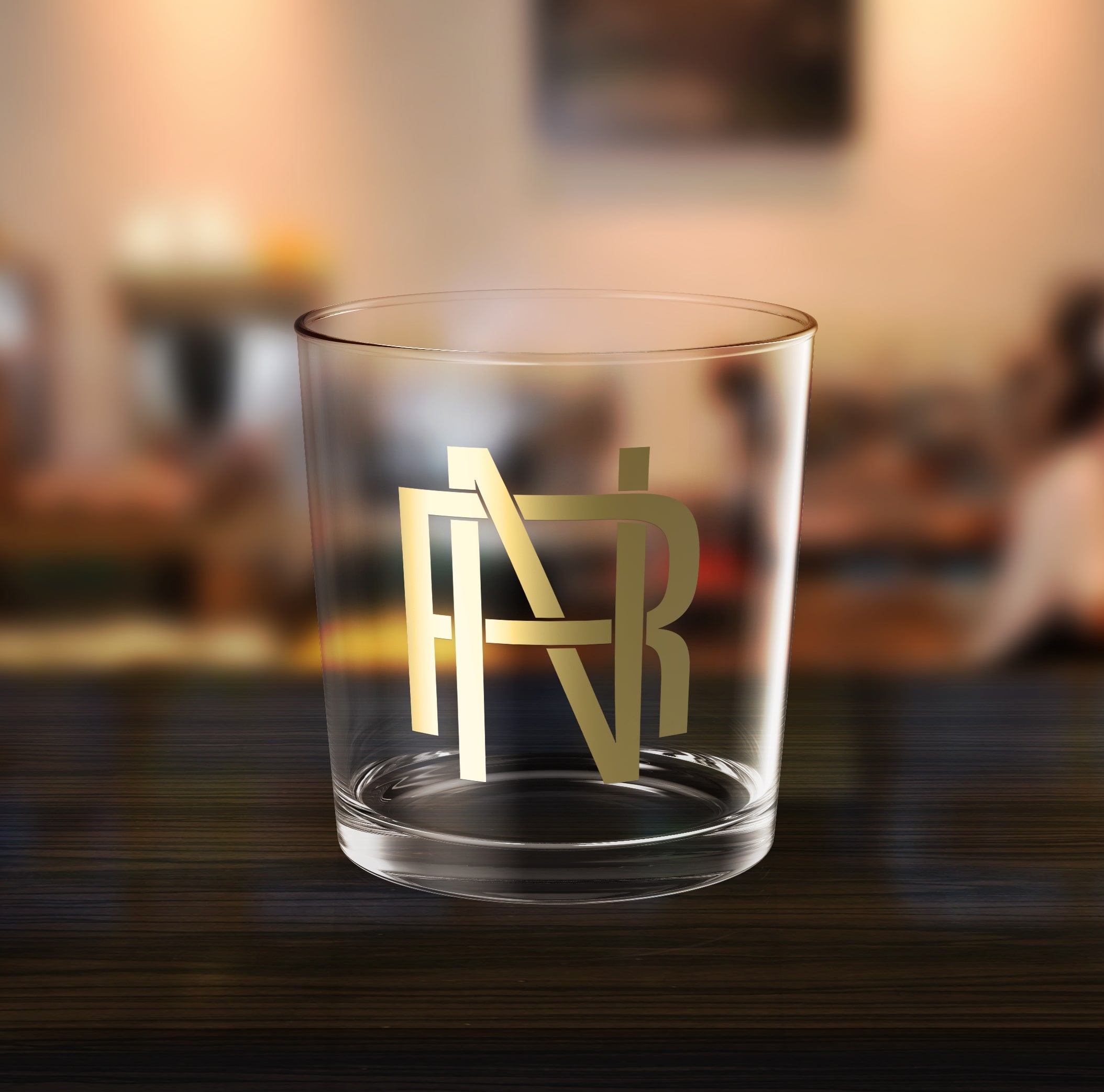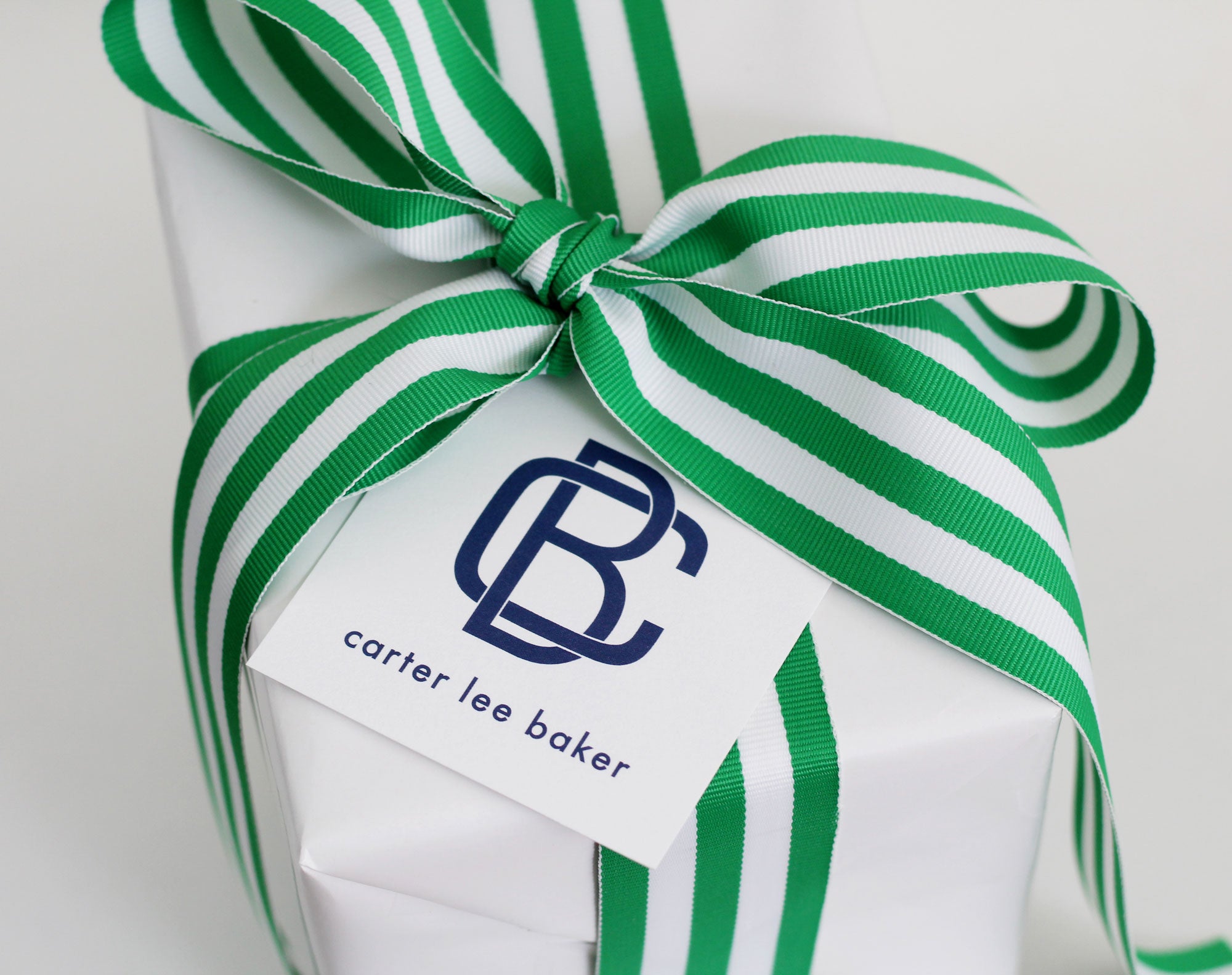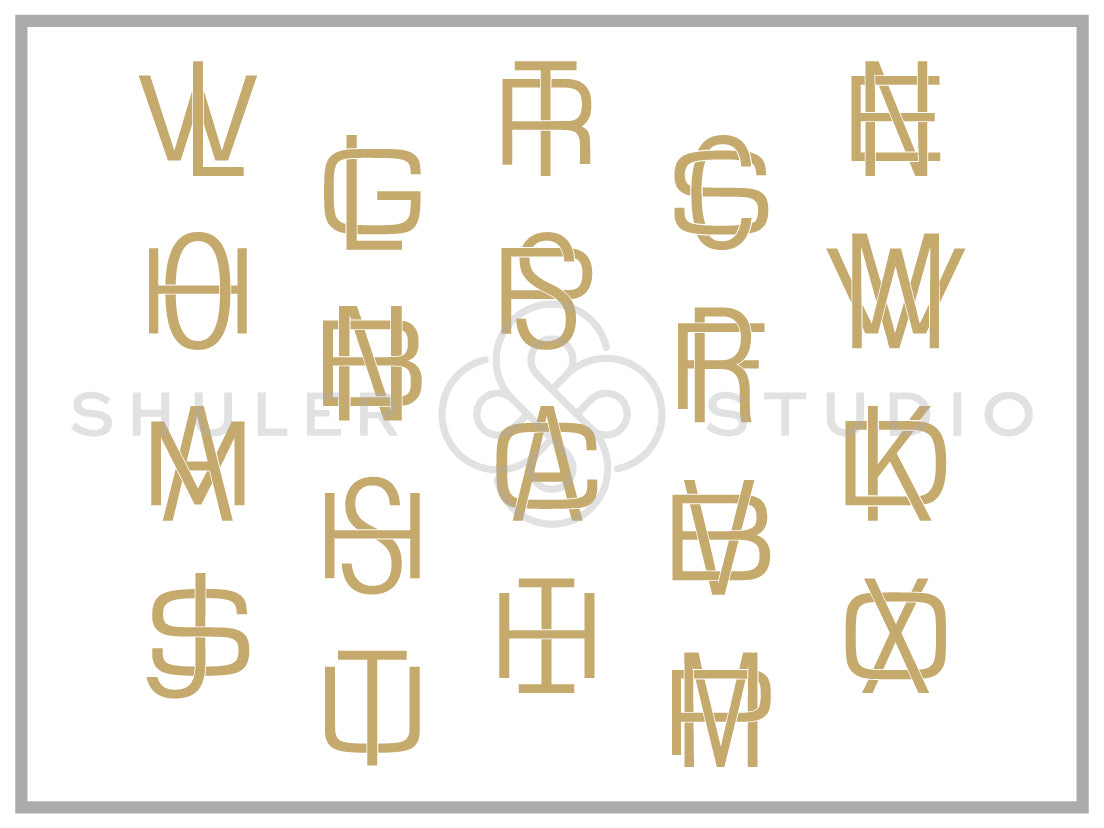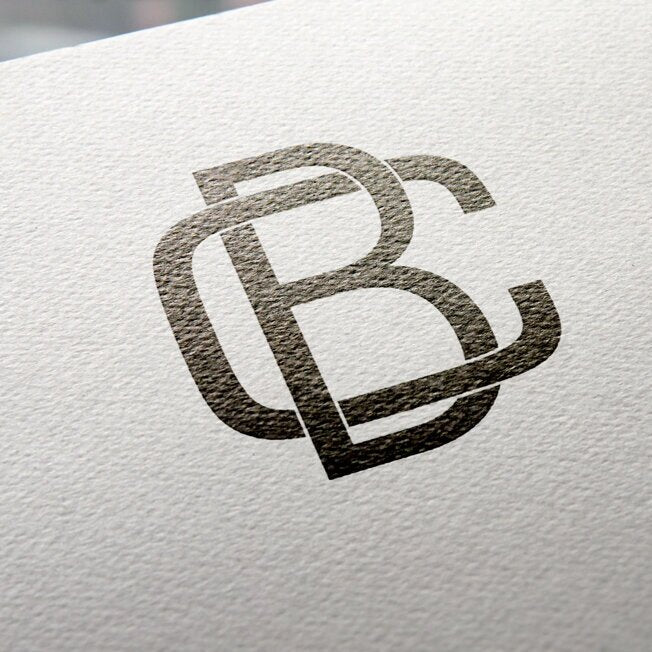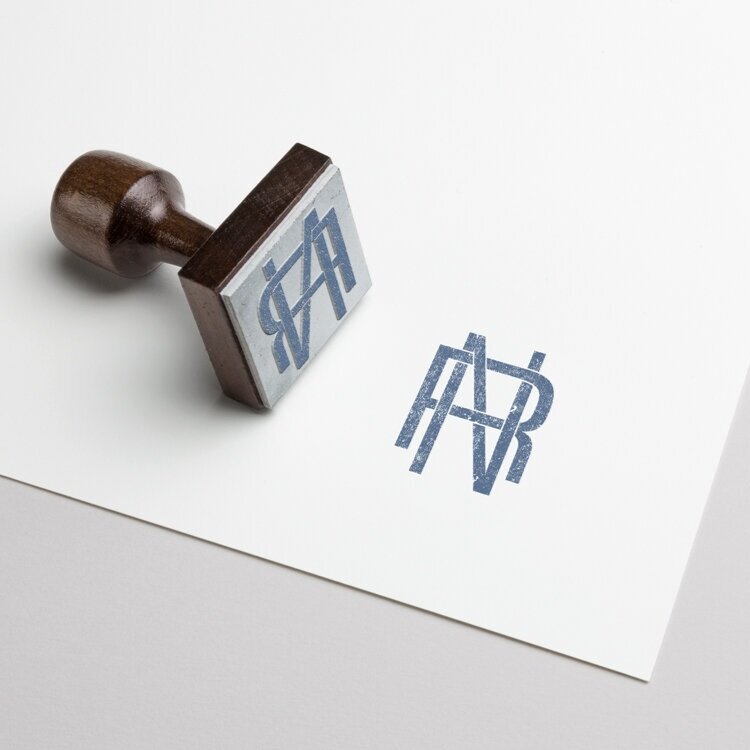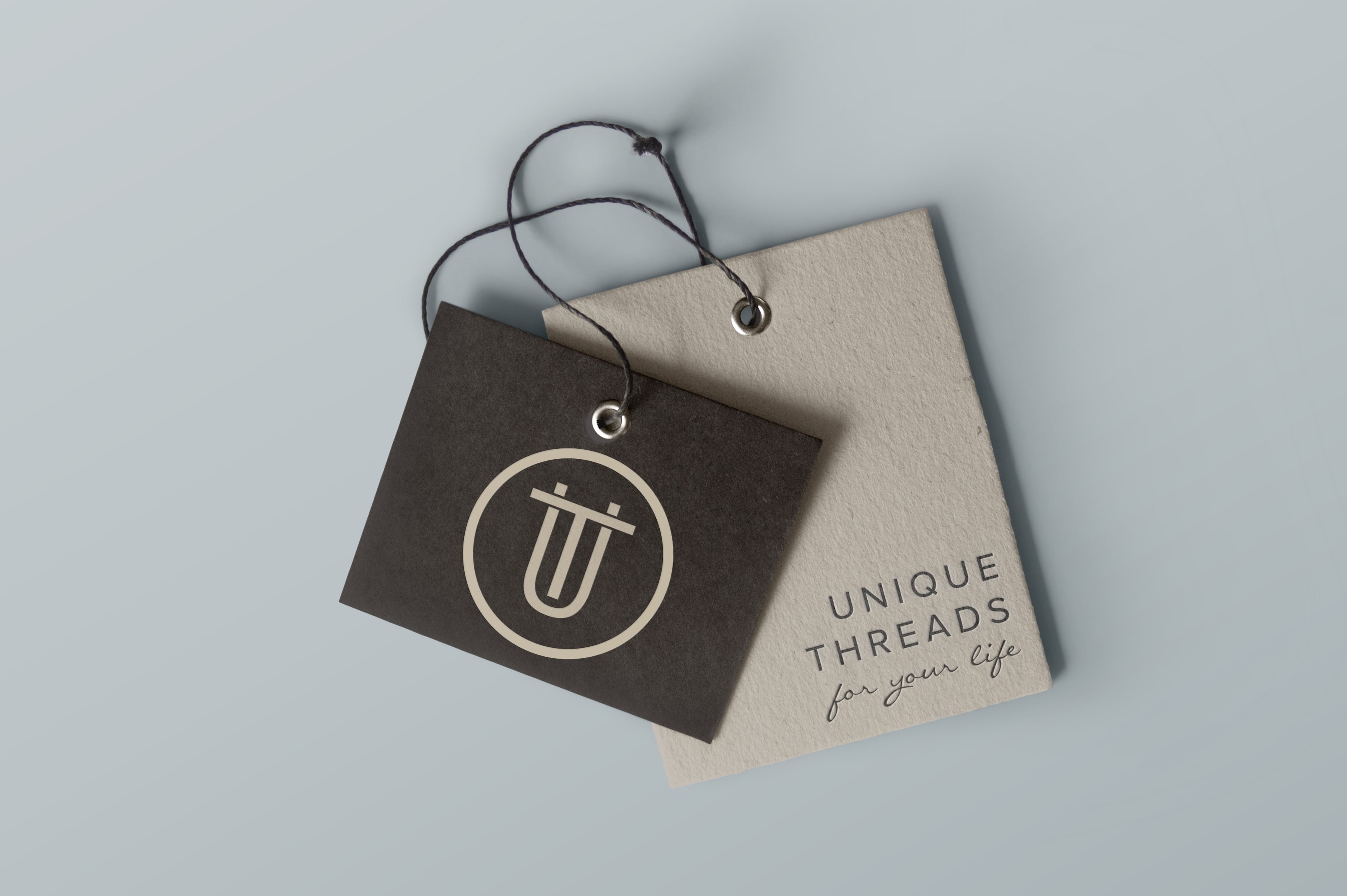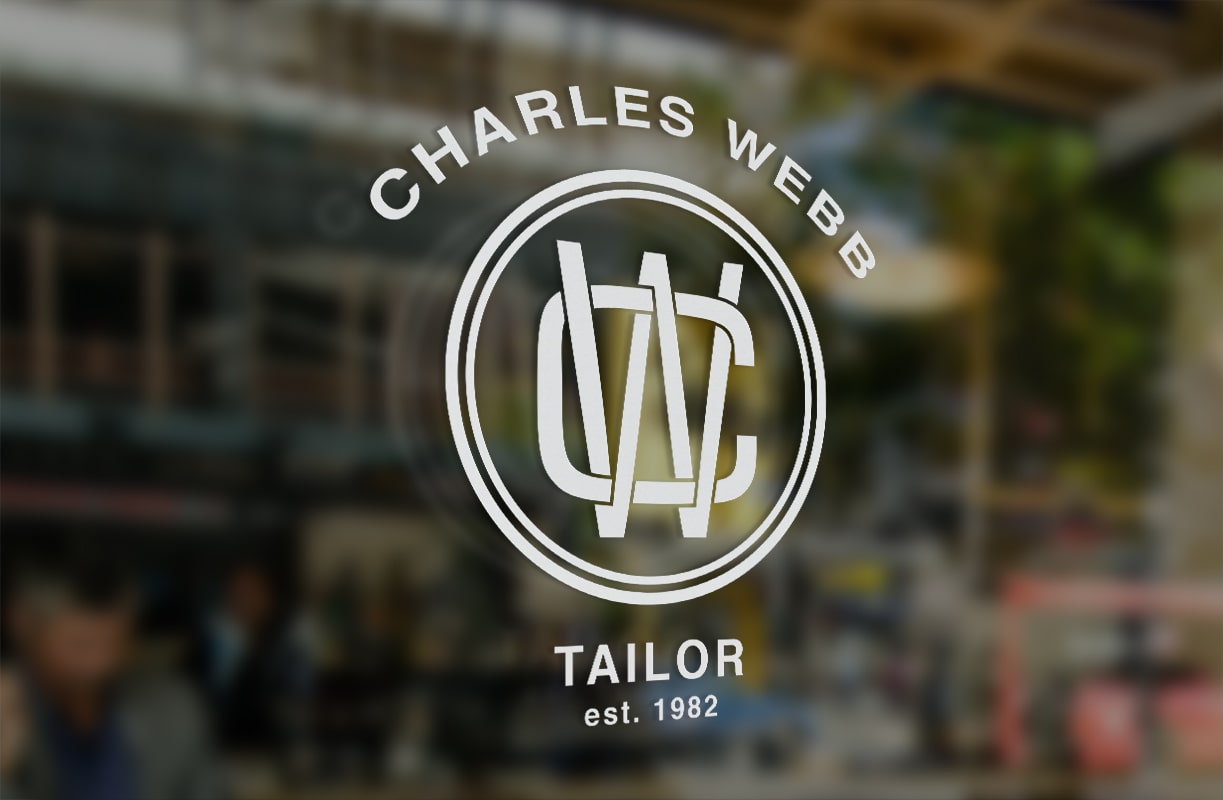
Monogram Block Font for Print
Our Monogram Block Font is an amazing collection (351 designs) of interlocking 2-letter monograms created by simply keying in the 2 letters desired. Beautiful elements and detail make this the perfect font for distinctive personalization.